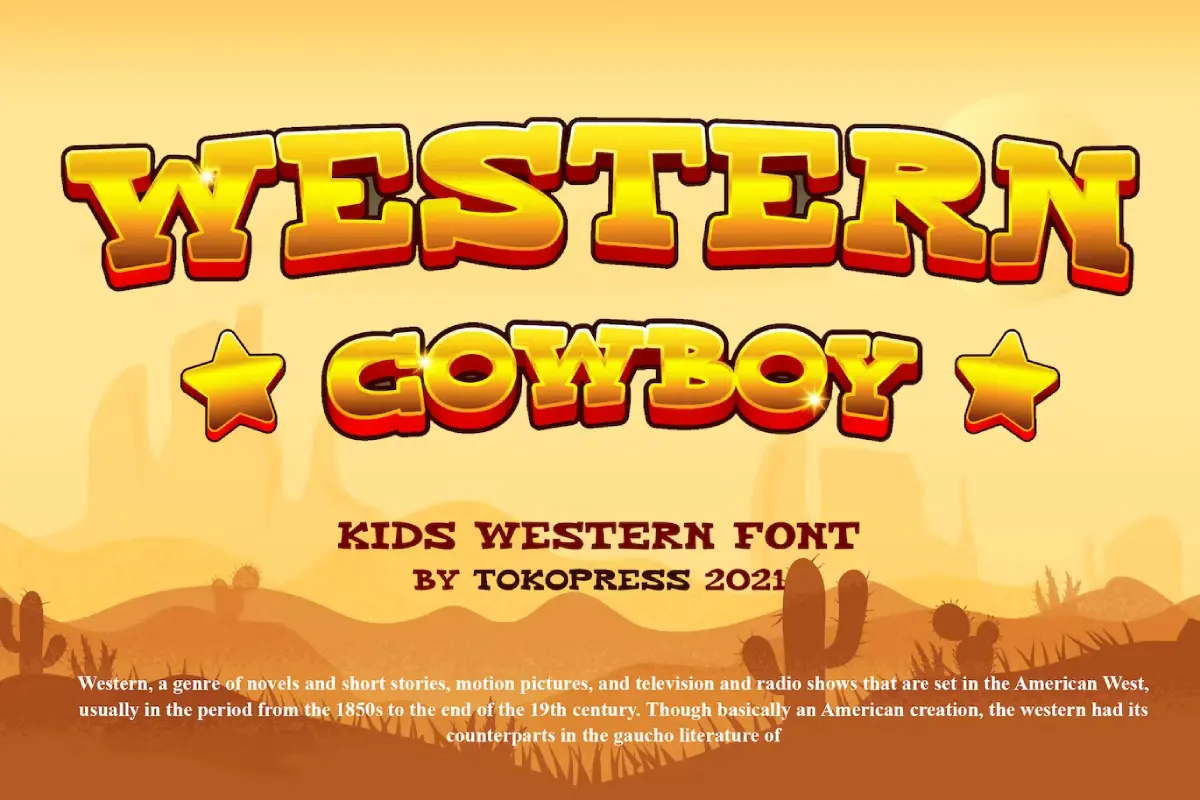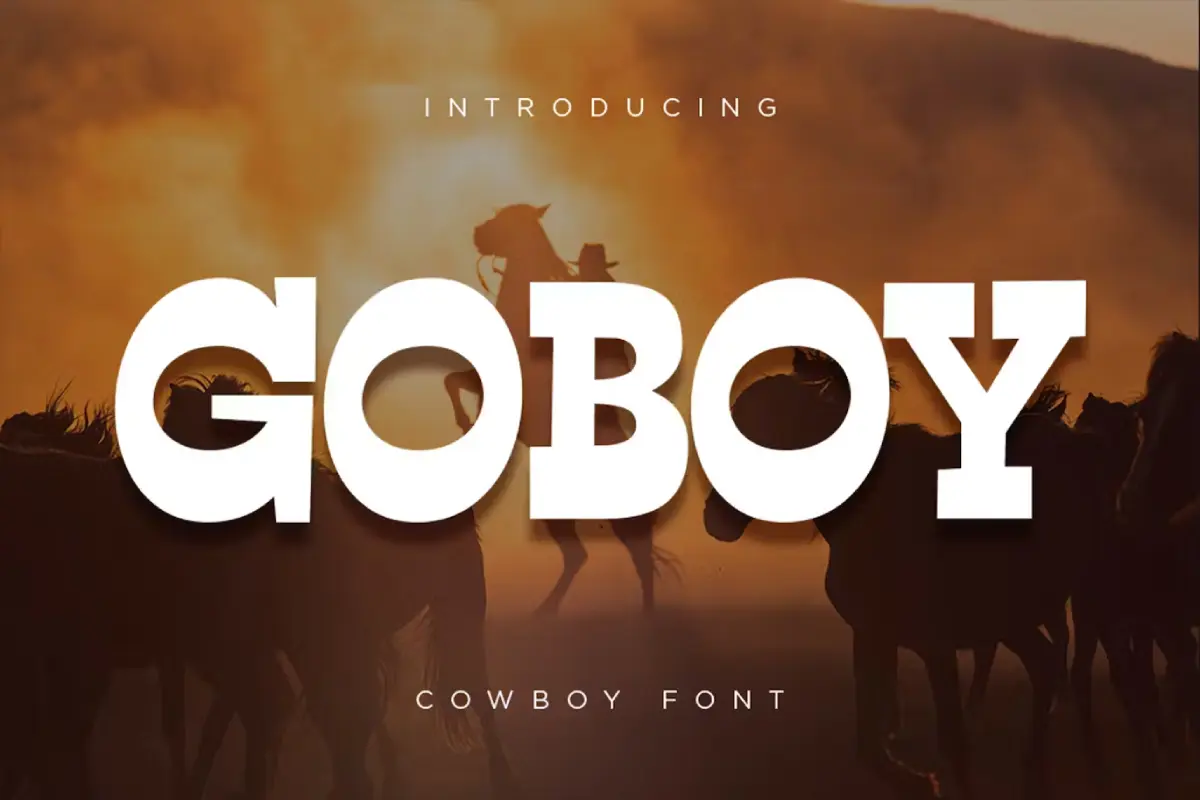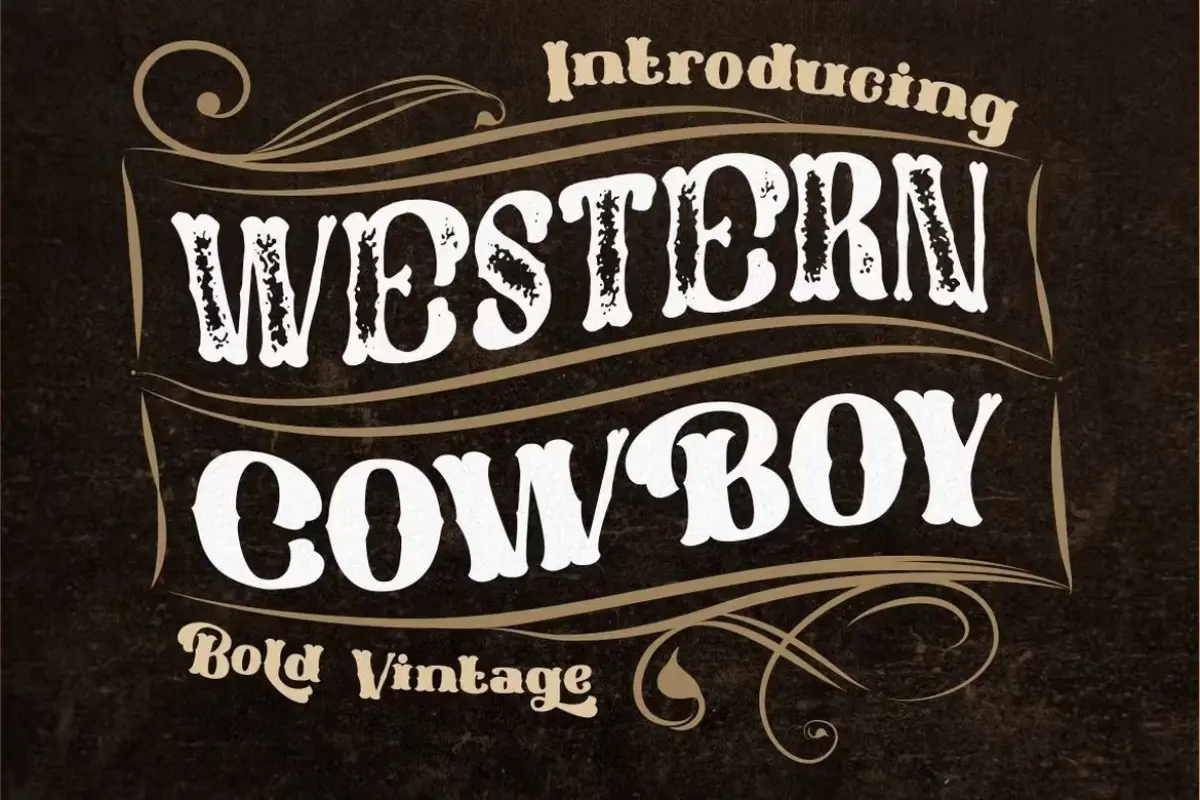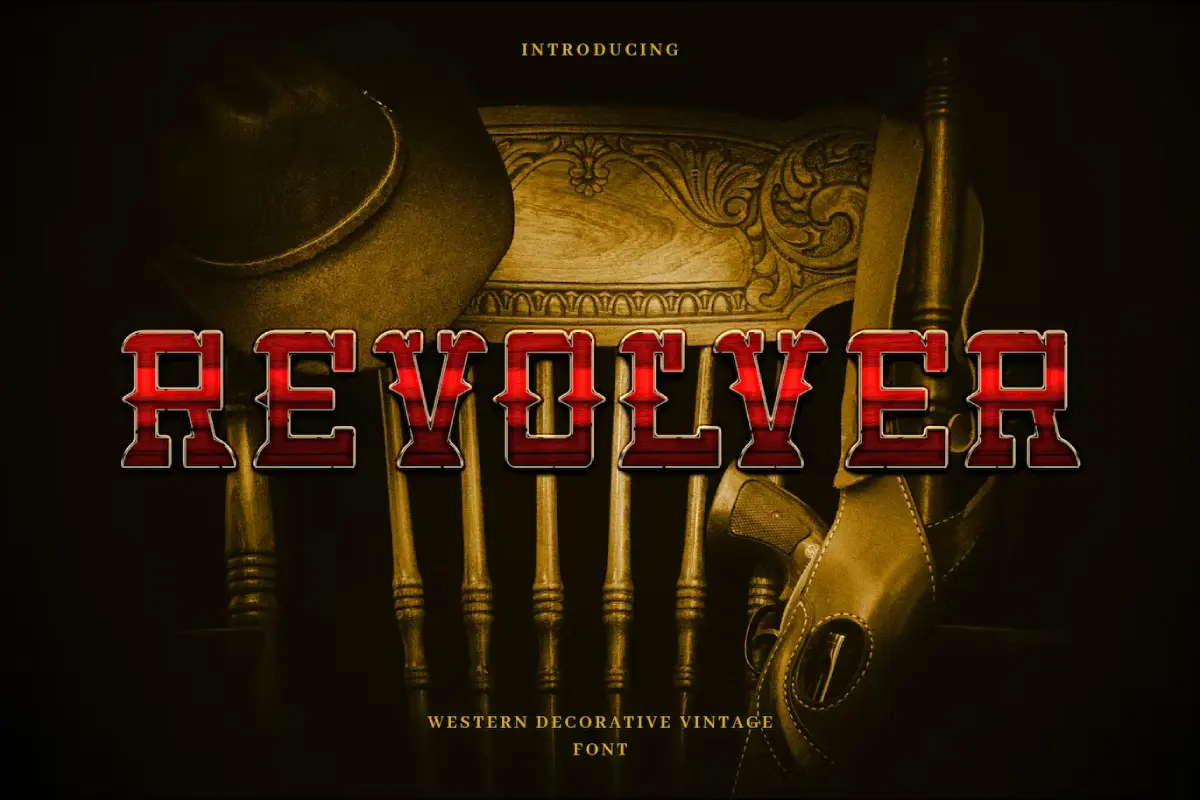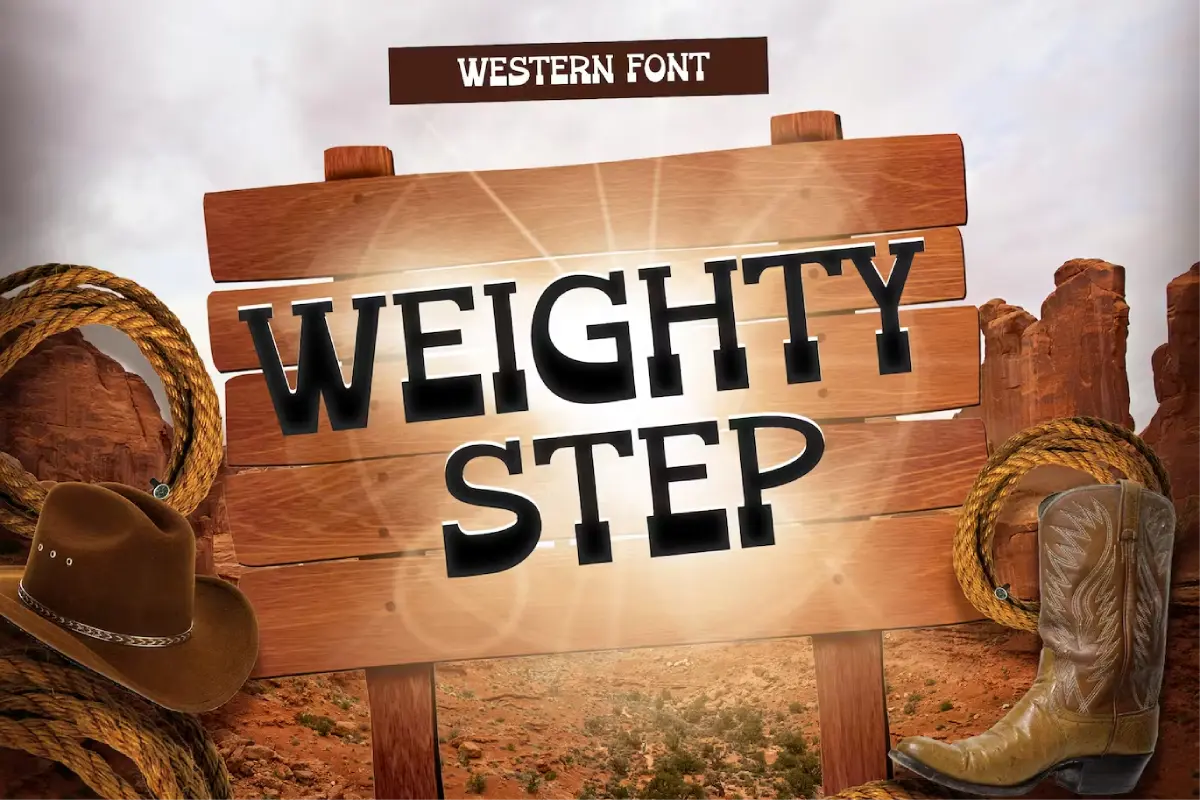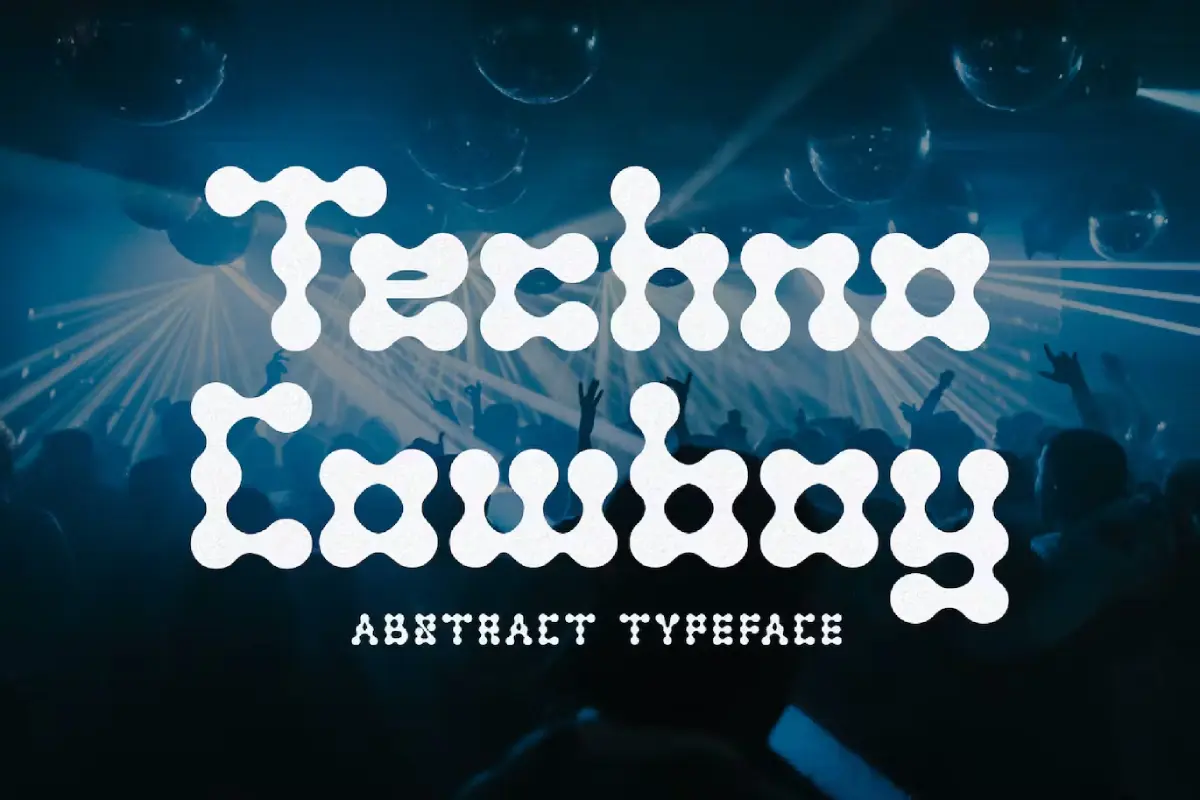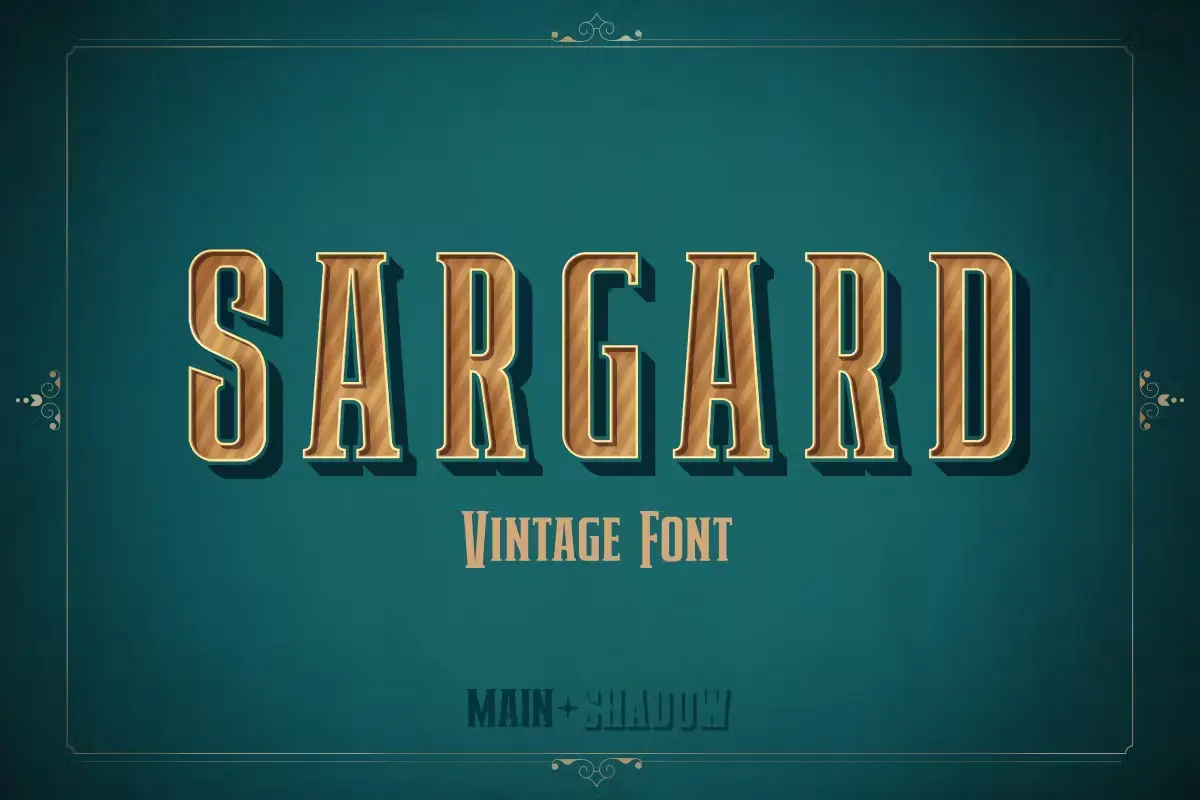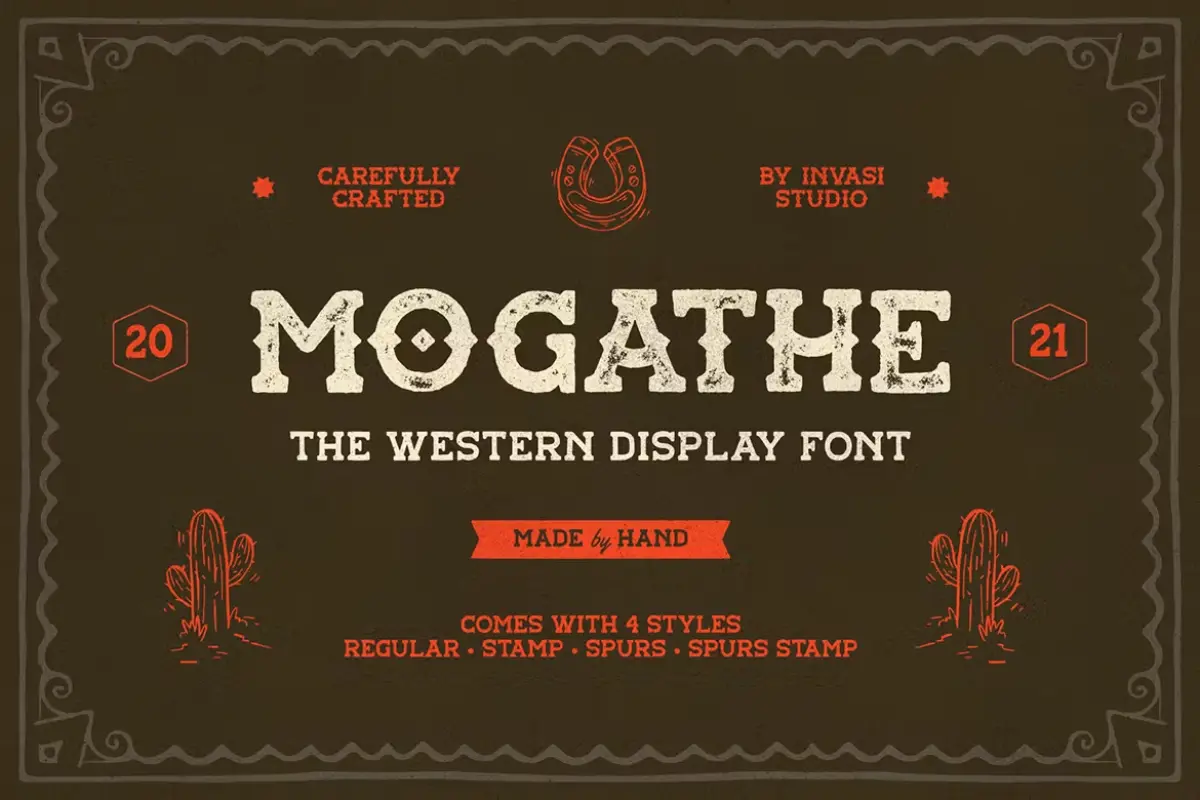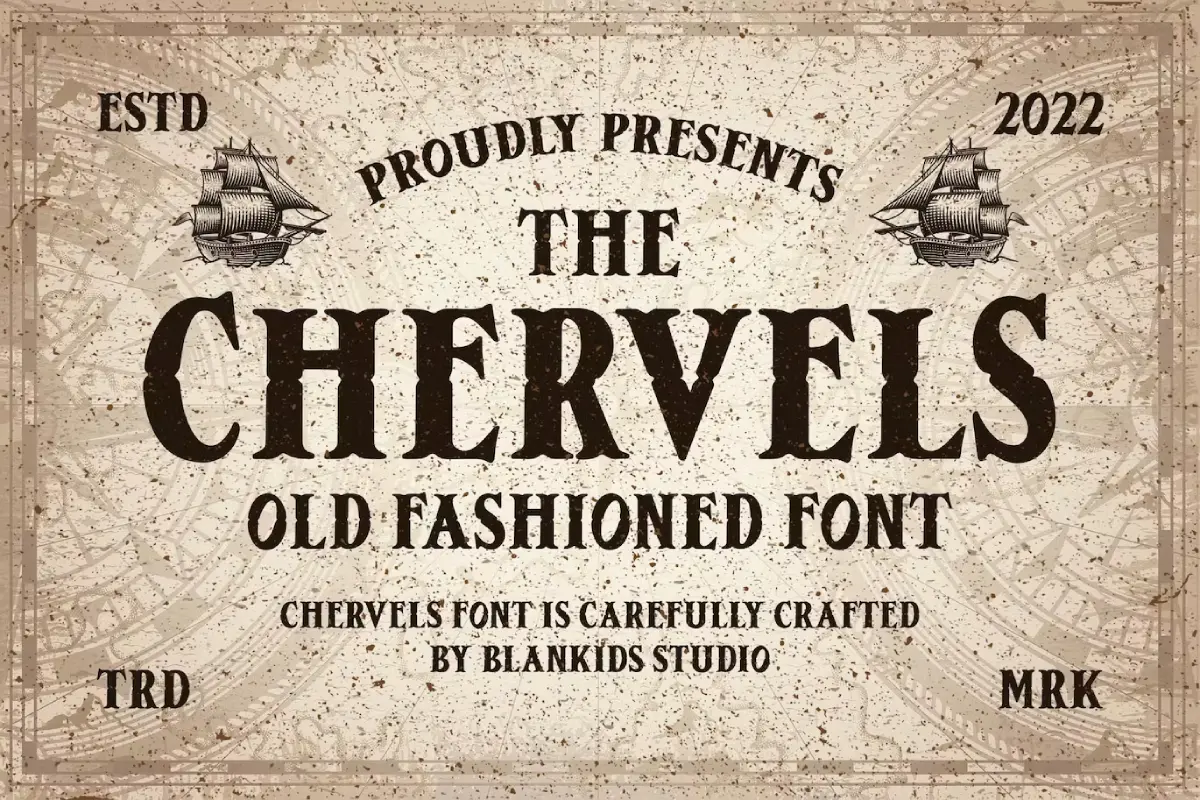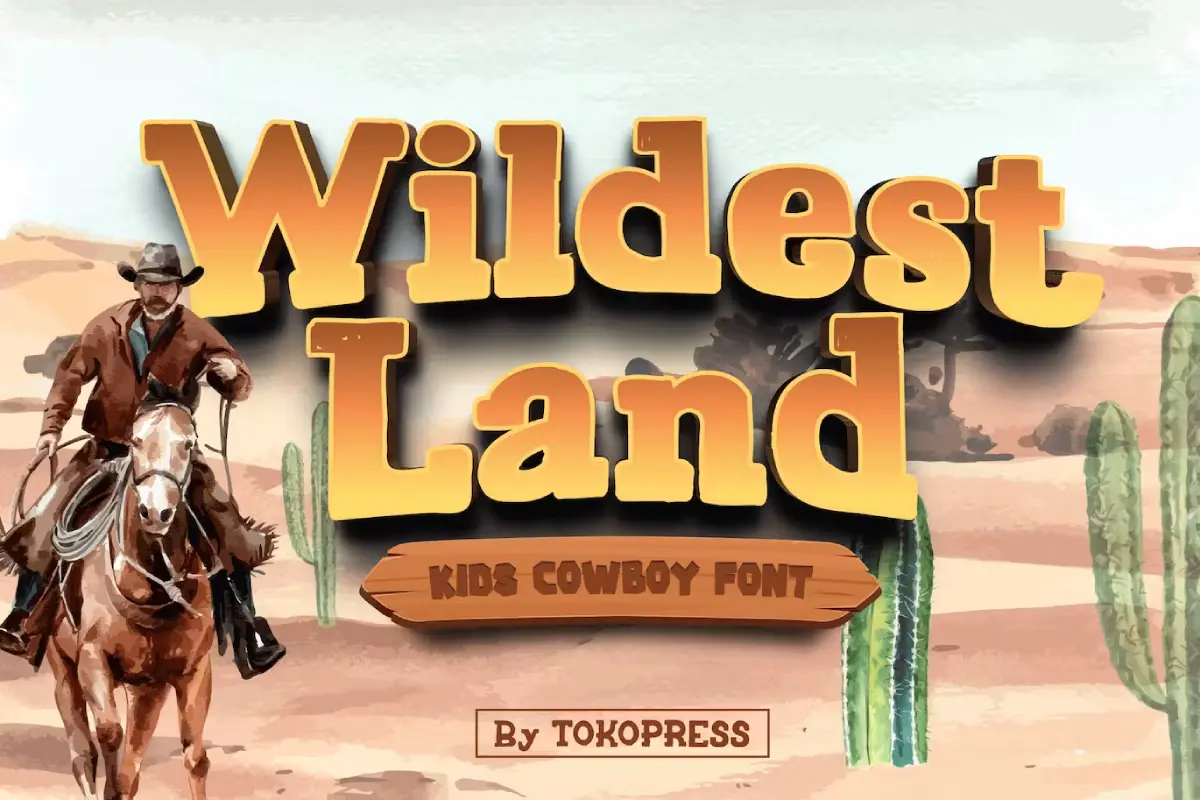
25 Best Western Fonts for the Cowboy Themed Projects
In the exciting world of design, sometimes we need to take a step back from modern styles and dive into the rough and ready charm of the Wild West. Projects that use cowboy themes, full of adventure and a bit of longing for the past, have a special kind of appeal. They make us think of wide open spaces, cowboys on horseback, and the classic American West. Using the best Western fonts can help us capture this feeling in a real way, bringing the audience right into this tough and adventurous world. After all, words aren’t just words on a page – they’re a powerful way to set the mood and feeling of a project.
Choosing the best western font for your project can be challenging, as there are many options available, each offering its unique flair. Some fonts emulate the rustic, hand-carved signs from old frontier towns, while others are inspired by classic cowboy film typography or vintage wanted posters. The key is to find a font that resonates with your project’s theme and the message you want to convey.
To help you select the perfect typeface for your cowboy-themed project, we’ve curated a list of the 25 best western fonts. These typefaces are chosen for their authenticity, versatility, and overall aesthetic appeal. They range from bold and brash, to elegantly distressed, and everything in between. So saddle up, and let’s ride into the sunset of typography together!
Western Cowboy – Gaming font
Introducing Western Cowboy, the delightful and energetic font that brings the spirit of the Wild West to your fingertips! With its bouncy baseline and Western charm, this font is designed especially for kids who love all things cowboy. It’s the perfect addition to your collection and is bound to become your new favorite font in town. So saddle up and get ready to embrace the wild frontier with Western Cowboy!
Go Boy – Cowboy Font
Go Boy is a slab serif font that brings to mind the cowboy and rodeo era. It has a playful, fun, and bouncy shape in each letter, making it a great choice for various design needs. Whether you’re working on a logo, brand identity, packaging design, or even set decoration, Go Boy can easily fit the bill. Its unique style can also bring a fun visual concept to your project. Simply put, if you’re looking for a font that captures the spirit of the Wild West while keeping things light-hearted, Go Boy is a fantastic option.
Western Cowboy – Bold Vintage Font
Western Cowboy is not your ordinary vintage font. Inspired by 1970s posters, it brings a bold and distinctive look to your designs. What sets Western Cowboy apart is its irregular baseline, adding an intriguing touch of irregularity. This font strikes the perfect balance between boldness and vintage charm, making it a standout choice for any project. Experience the unique appeal of Western Cowboy and give your designs a bold vintage touch.
Revolver – Western Cowboy Typeface
Say hello to Revolver, one of the best western fonts with a bold and sturdy style, oozing the classic cowboy vibe. If you’re on the hunt for a western display font that feels like a step back in time, Revolver is your ideal pick. This versatile font is perfect for a wide range of uses, including invitations, banners, movie titles, branding, events, and much more. Don’t miss out on the vintage charm of the Revolver font!
Weighty Step: A Playful Western Font for Kids
Techno Cowboy – Futuristic Display
Meet Techno Cowboy, a futuristic techno display font that comes with support for multiple languages. It’s perfect for crafting attention-grabbing logos, headlines, advertisements, and posters.
Sargard Font – A Western Font
Mogathe – Western Fonts Pack
Introducing Mogathe, a font that takes inspiration from the West life era. With its vintage western appearance, Mogathe offers four styles: Regular, Stamp, Spurs, and Spurs Stamp. Use this font to create stylish designs that capture the nostalgic and authentic feel of the West life era.
Chervels an Old Fashioned Font
Masterson – A Western Fonts Pack
Masterson is a font that was inspired by the old western times. It’s a special type of font called ‘slab serif’ and it has a cool, vintage western feel to it. There are three different versions you can use. This font helps you make styles that look very careful and detailed. It’s one of the best western fonts.
Barlock – Strong Display Font
Introducing Barlock, a bold display font inspired by sports design and old-school typography. Its letterforms are carefully crafted with smooth curves and a strong, elegant weight, making it perfect for creating powerful and sophisticated designs.
Wildest Land – Cowboy Kids Font
Introducing Wildest Land, the lively gaming font with a western twist. Perfect for kids market, online games, stationery, posters, movie titles, YouTube covers, social media page covers, and more. Wildest Land is sure to be your new favorite font in town!
West Yard – Western Display Font
Introducing West Yard, a bold and western-inspired display font. It’s perfect for a wide range of creative projects, from cartoons and children’s games to quotes, titles, brand names, book covers, posters, and more. If you’re looking to add a touch of beauty to your creations, West Yard is the ideal choice.